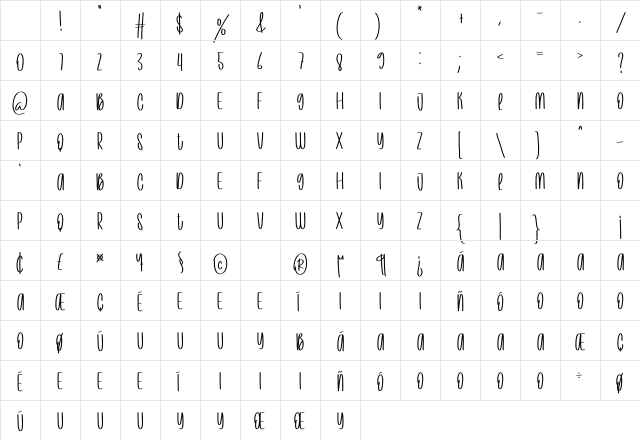
Complete Twilight Christmas Regular glyph index. Displaying only characters natively supported by Twilight Christmas Regular font.
Twilight Christmas is a composed and adaptable typeface that performs quietly and consistently across a wide range of design contexts. Its slender proportions lend an understated elegance to any composition.